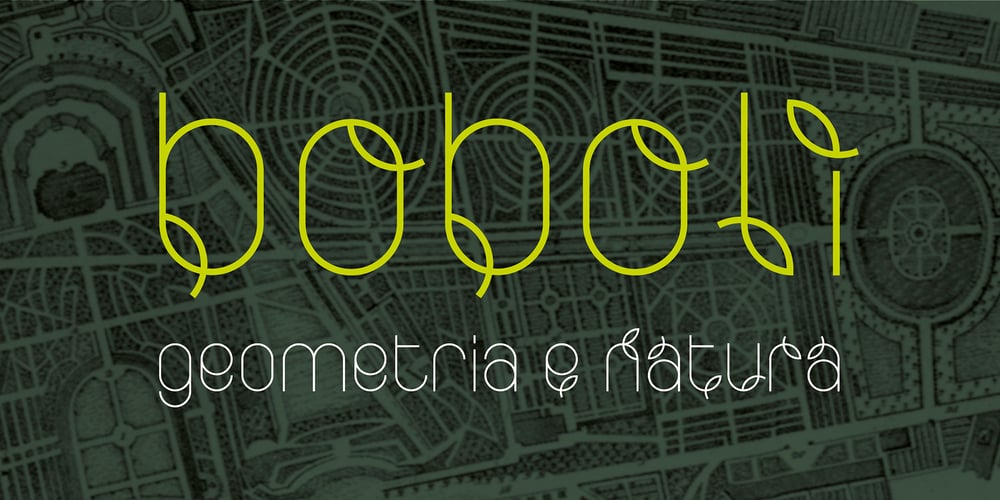
Boboli Font Family was designed by Stefano Tonti and published by Stefano Tonti. Boboli contains 2 styles and family package options. The Boboli garden in Florence (16th century) is one of the first examples of Italian renaissance garden, where nature was shaped into geometric beauty; the Boboli font was designed in the same spirit, filtered by a Modernist view.It comes in two sets, Autumn/Winter and Spring/Summer: by mixing them you can compose the typographic season of your choice.From the geometric, minimal Fall/Winter set stem the leaves of the baroque-esque Spring/Summer set, with many stylistic alternatives that allow perfect matching.The two opposite styles merge perfectly, because the leaves are not mere decorations but organic part of the structure, achieved by sampling the curves of the basic glyphs.With Boboli design meets nature, Bauhaus goes greenhouse.